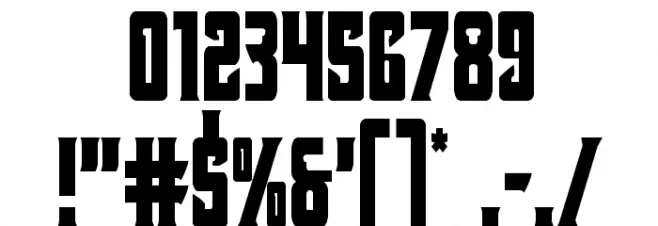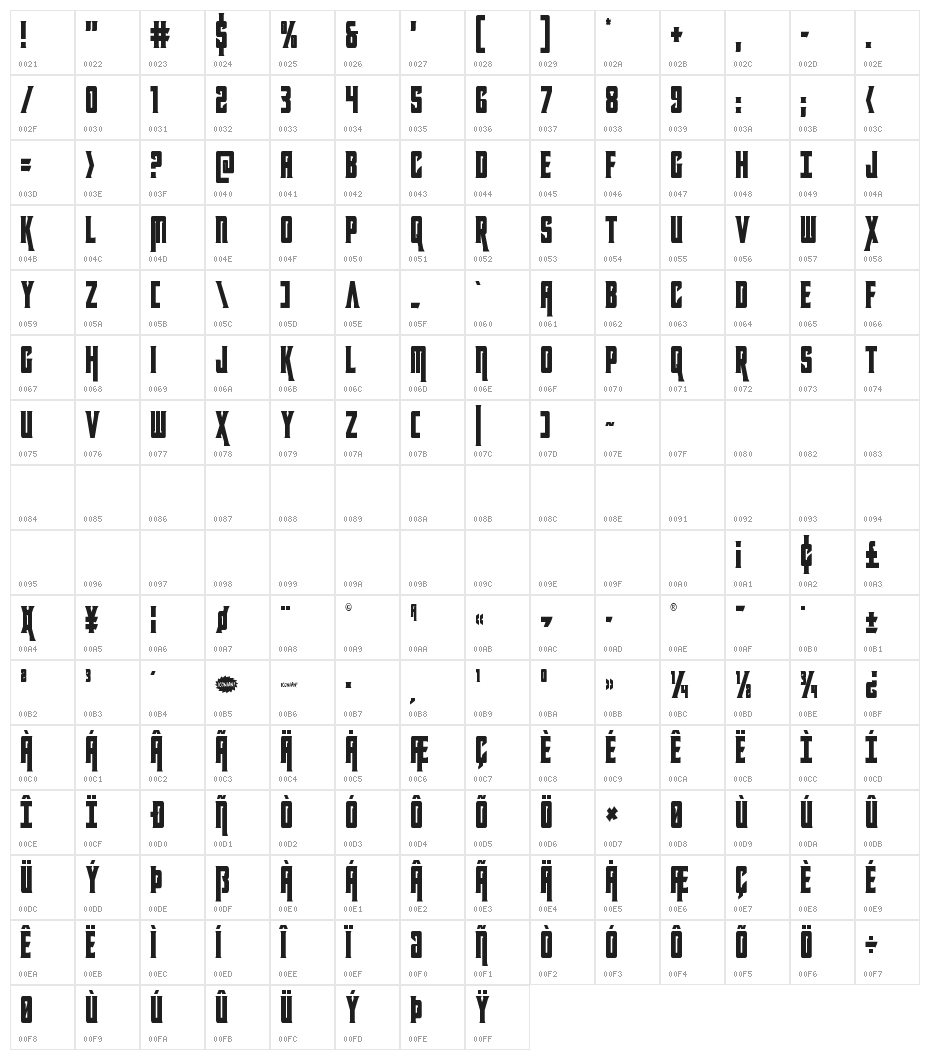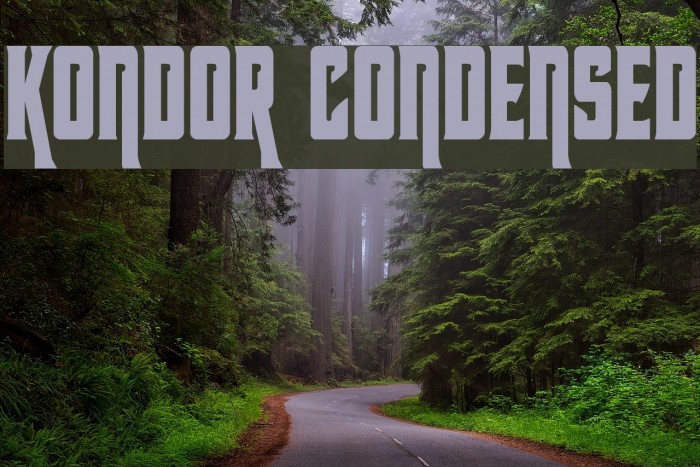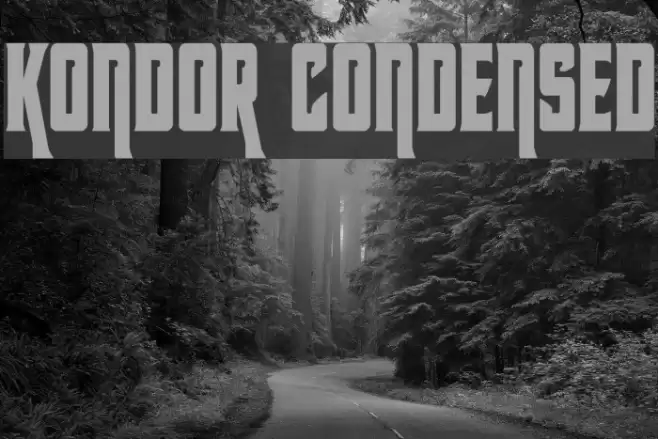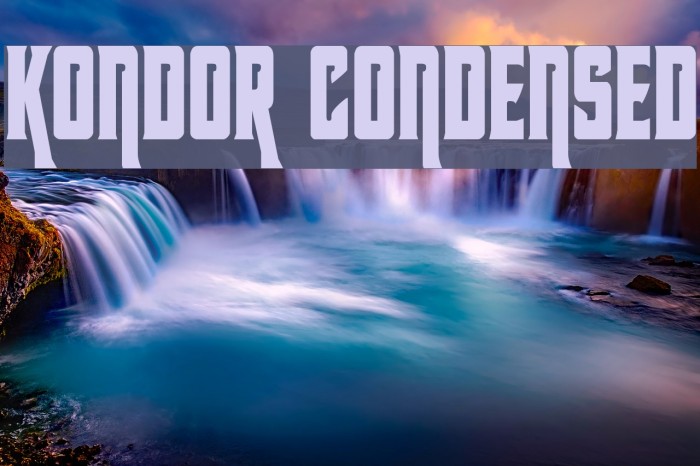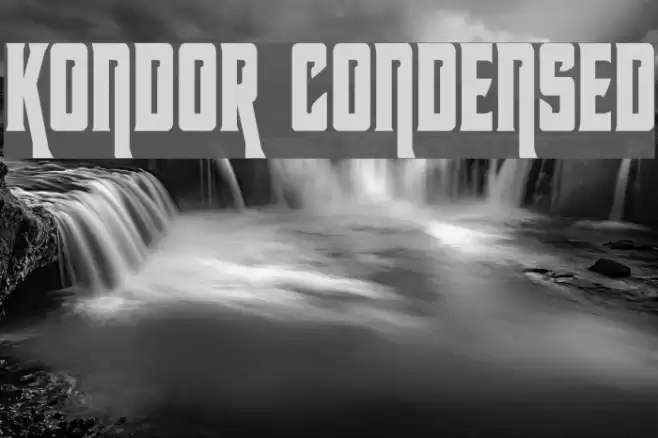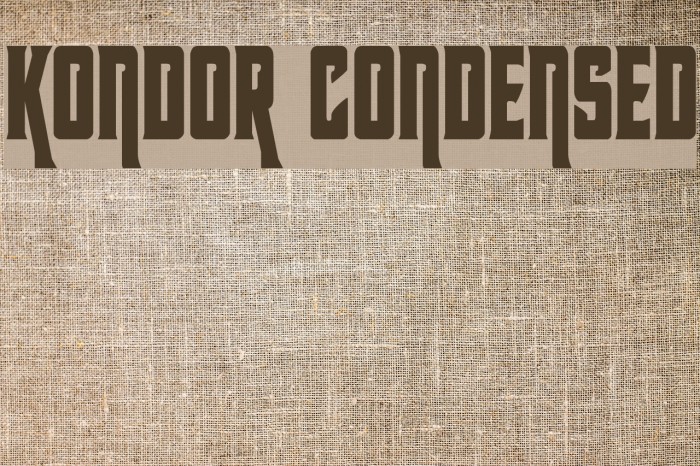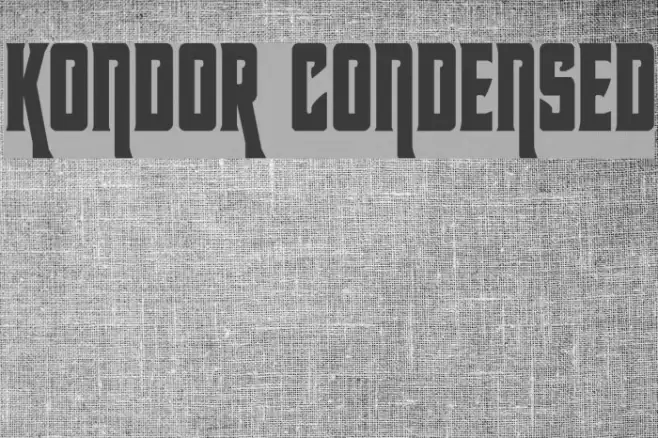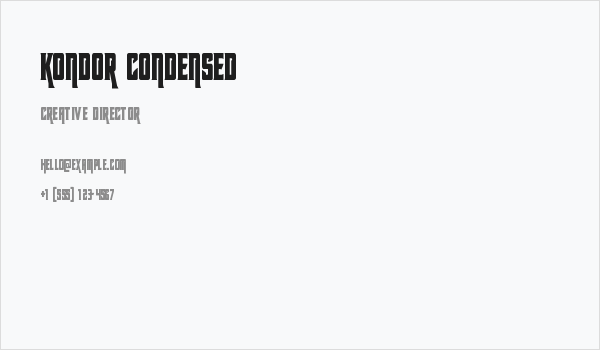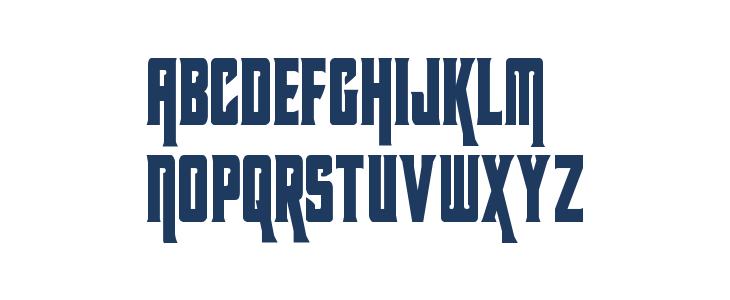
Kondor Condensed Font
Kondor Condensed Description
This font features a bold and striking design with a condensed structure, making it ideal for impactful headlines and attention-grabbing displays. The characters are tall and narrow, with sharp angles and a geometric feel that conveys a sense of strength and modernity. The uppercase letters dominate the design, while the lowercase letters maintain the same boldness and condensed style. Numbers and special characters are equally bold, ensuring consistency across all text elements. The font's overall aesthetic is both modern and slightly retro, reminiscent of vintage poster typography.
| Proposed Projects | Ideal for posters, logos, branding, and any project requiring a strong visual impact. |